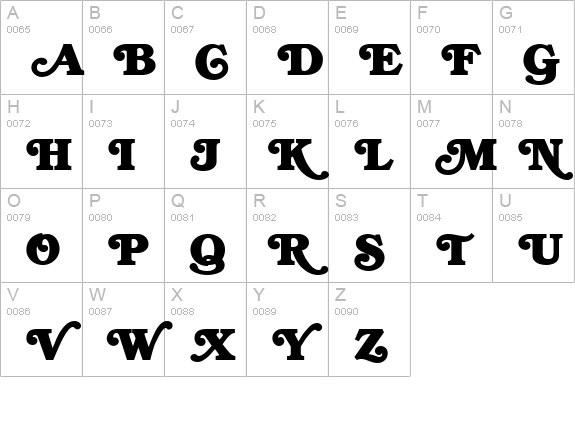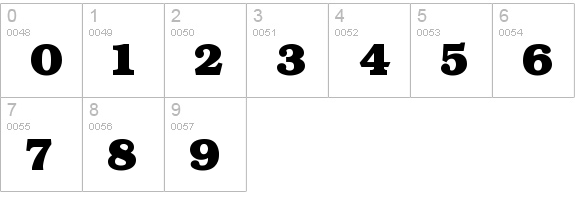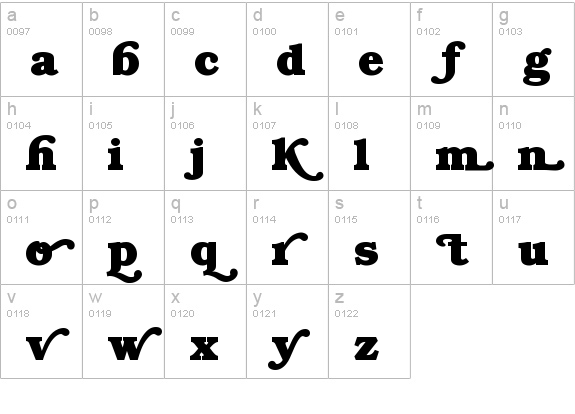
BrookmanSwash Font Details
BrookmanSwash font is a versatile and elegant typeface that combines classic serif elements with modern swash details. Its sophisticated design is perfect for adding a touch of luxury and sophistication to your projects. The flowing swashes and delicate serifs create a harmonious balance that is both eye-catching and readable. What makes BrookmanSwash font even more appealing is that it is available for free download at FontsMarket.com. This means you can easily access this beautiful typeface and use it in your designs without any cost. Whether you're working on invitations, branding, or any other creative project, BrookmanSwash font is sure to elevate your work with its timeless charm and effortless style.